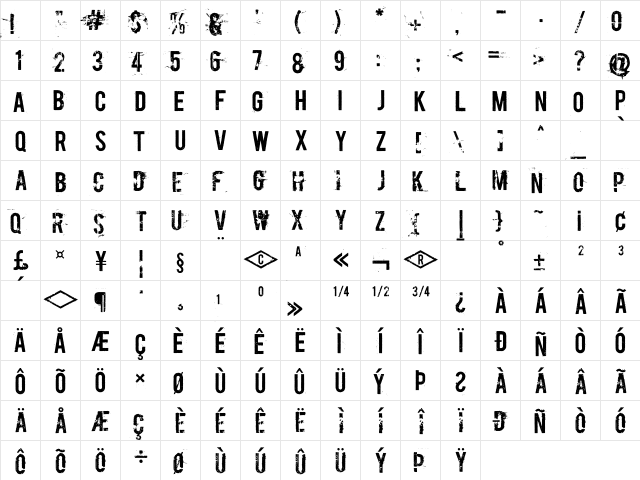
Boycott Regular
| Foundry | Ryoichi Tsunekawa |
| Designer | Ryoichi Tsunekawa |
Design Context for Boycott Typeface
Boycott is a composed and adaptable typeface that performs quietly and consistently across a wide range of design contexts.